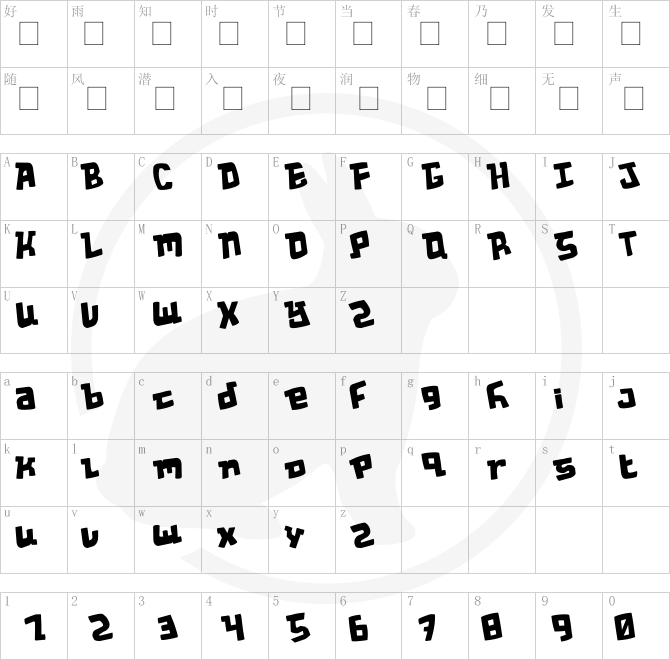
- Font Name:Wacky Spankers
Wacky-Spankers.ttf is a very beautiful artistic font, Wacky-Spankers.ttf is widely used in the design and printing of various books and pictures,Wacky-Spankers.ttf has a strong visual impact,Wacky-Spankers.ttf is a commonly used font in newspapers, magazines and books, and is used in posters, e-commerce Poster design, store design, logo design, font design and other fields.Wacky-Spankers.